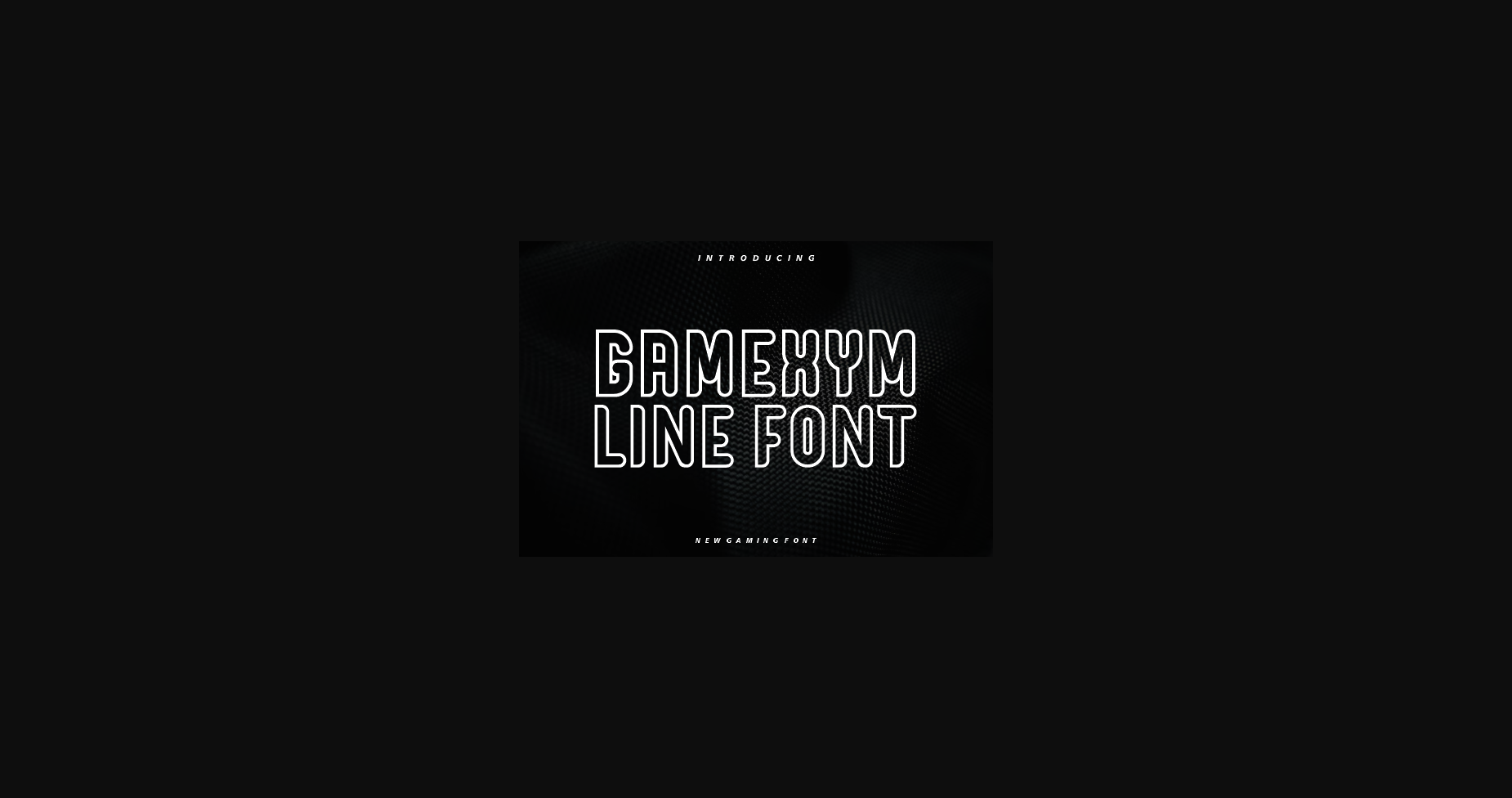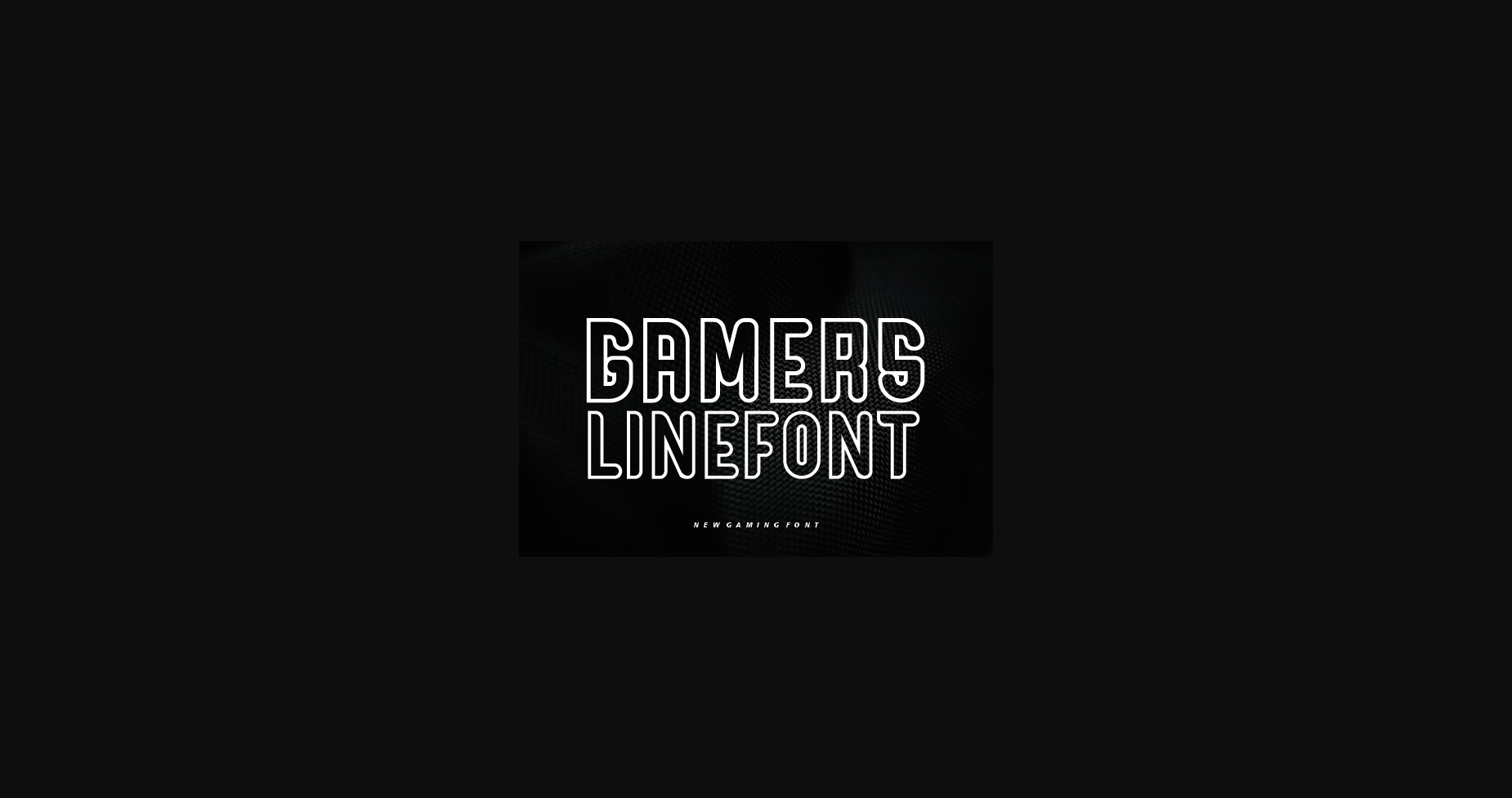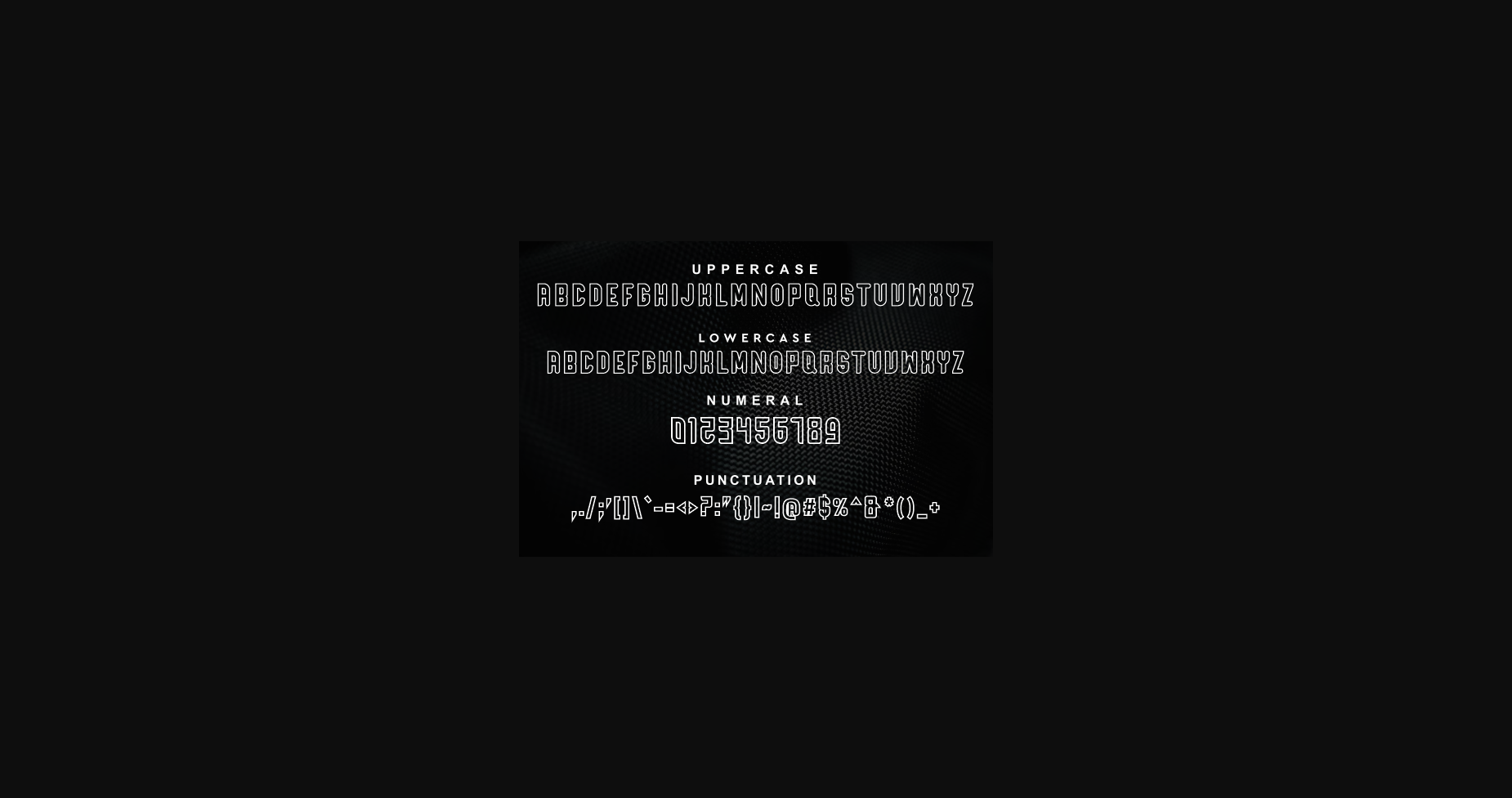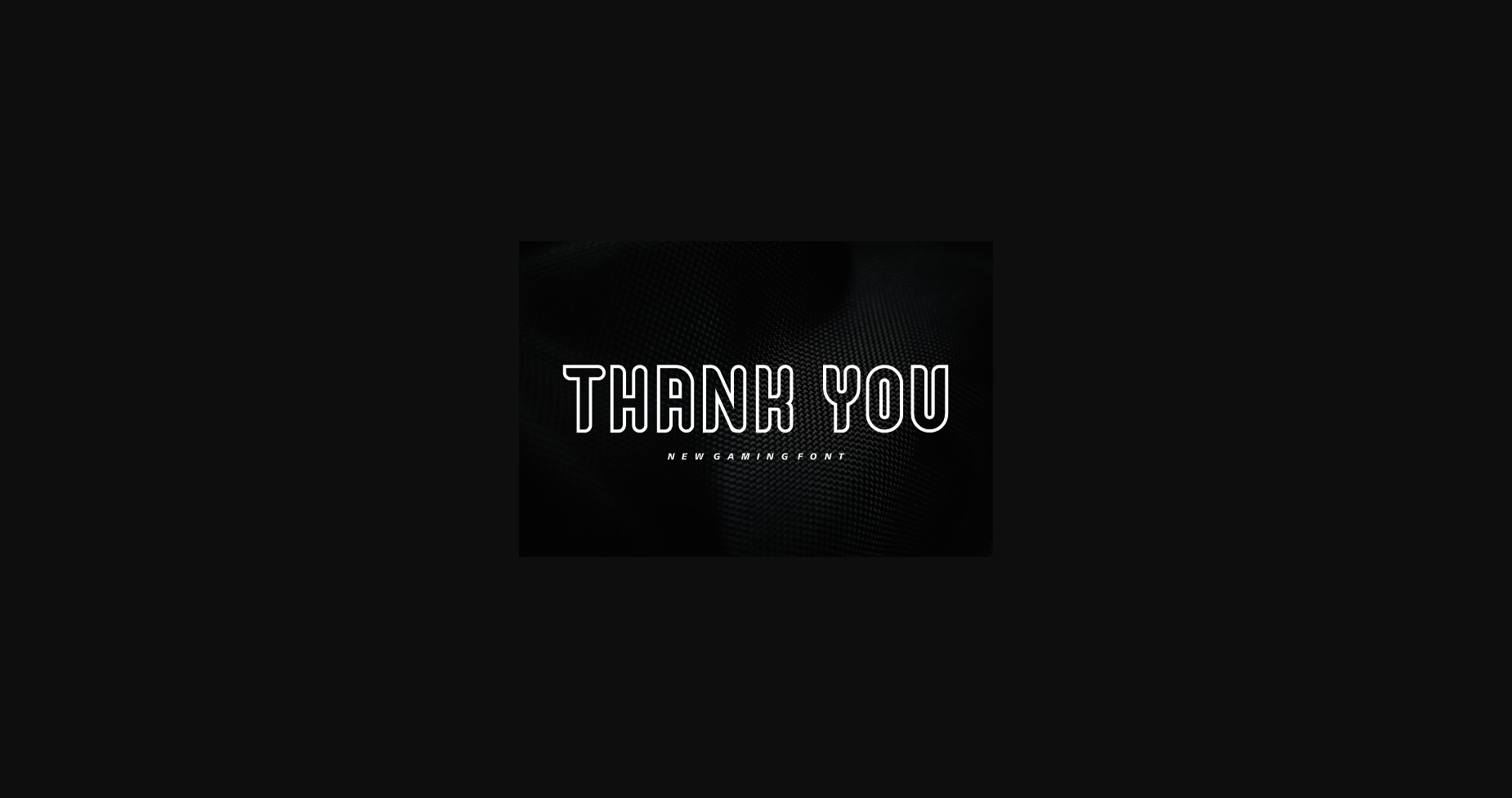
About Gamexym Line Font
Gamexym Line is a unique and modern game font defined by geometric characters.
It’s the perfect game font, and it can make your projects extraordinary.
Add it with confidence to your projects, and you’ll love the results!
It’s the perfect game font, and it can make your projects extraordinary.
Add it with confidence to your projects, and you’ll love the results!